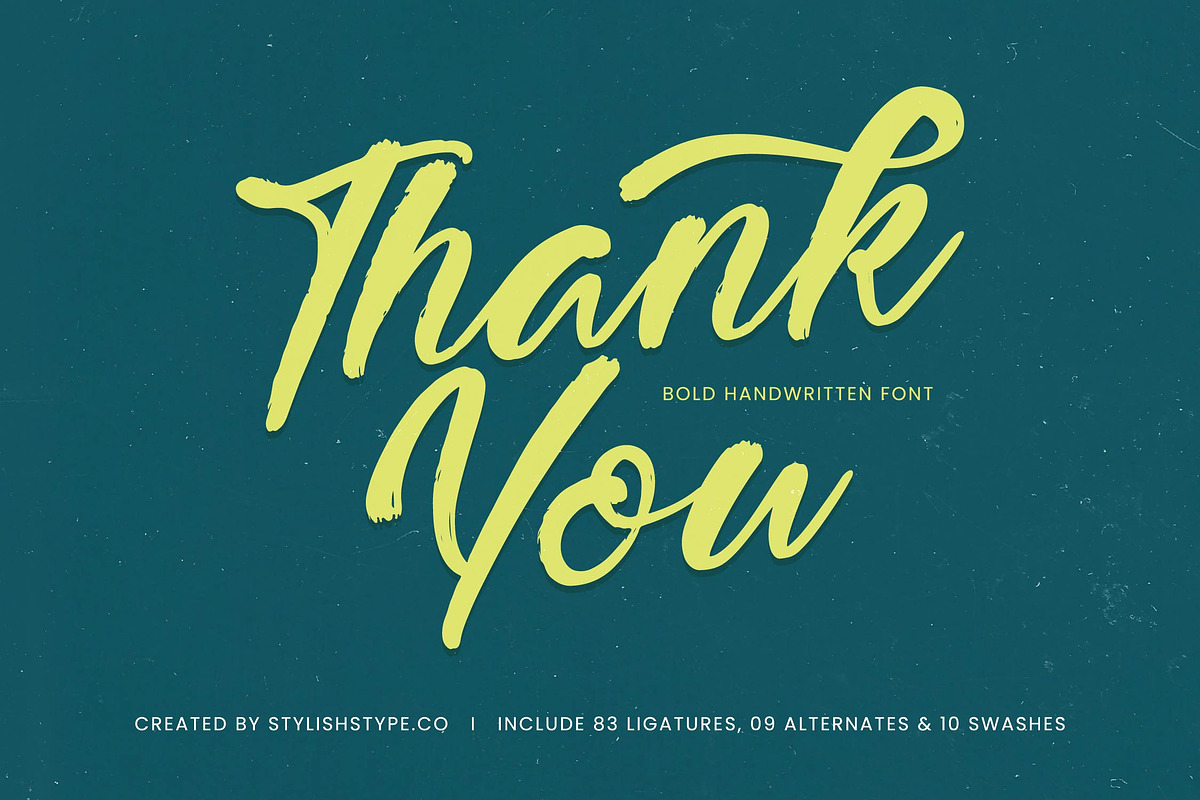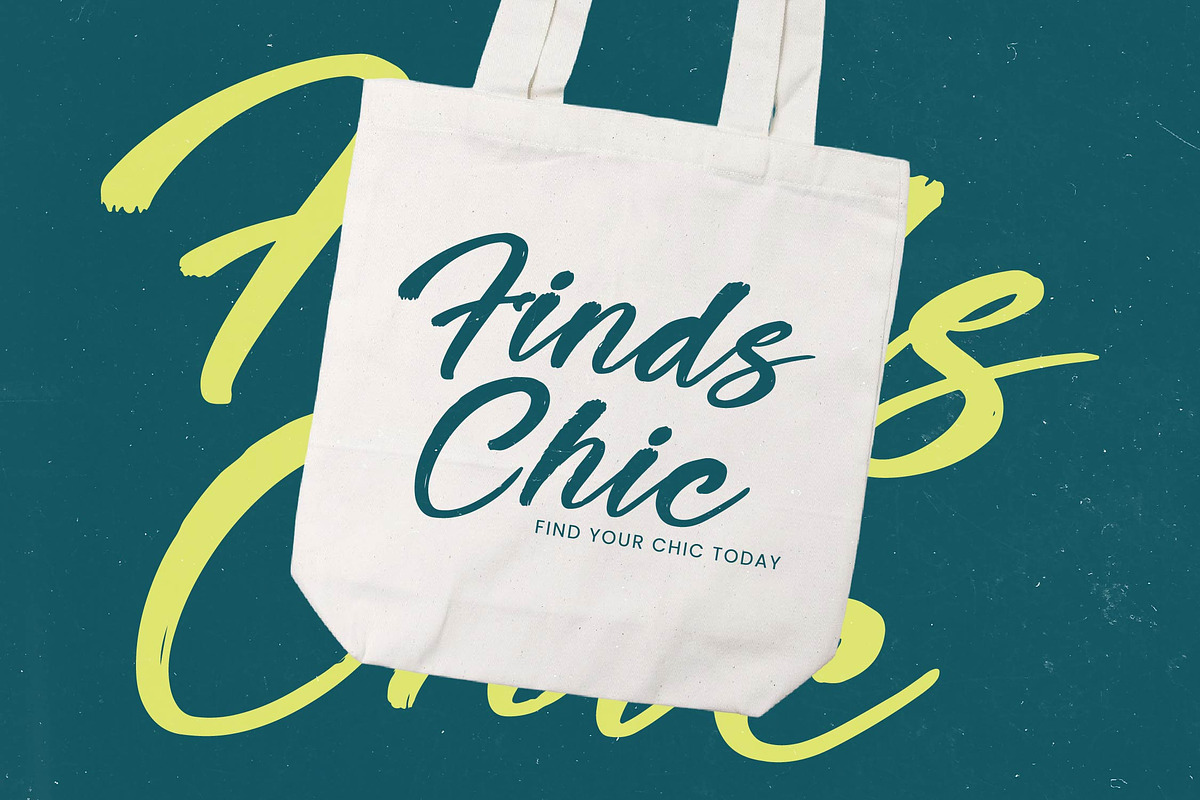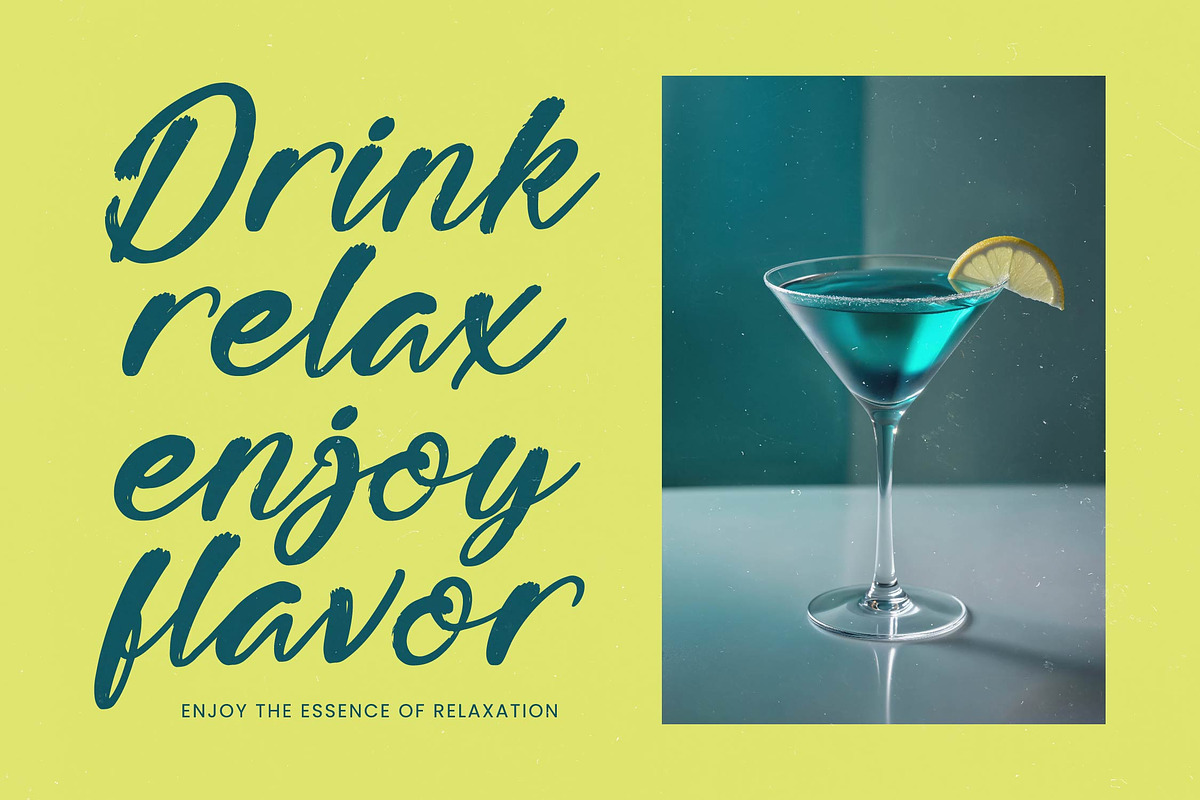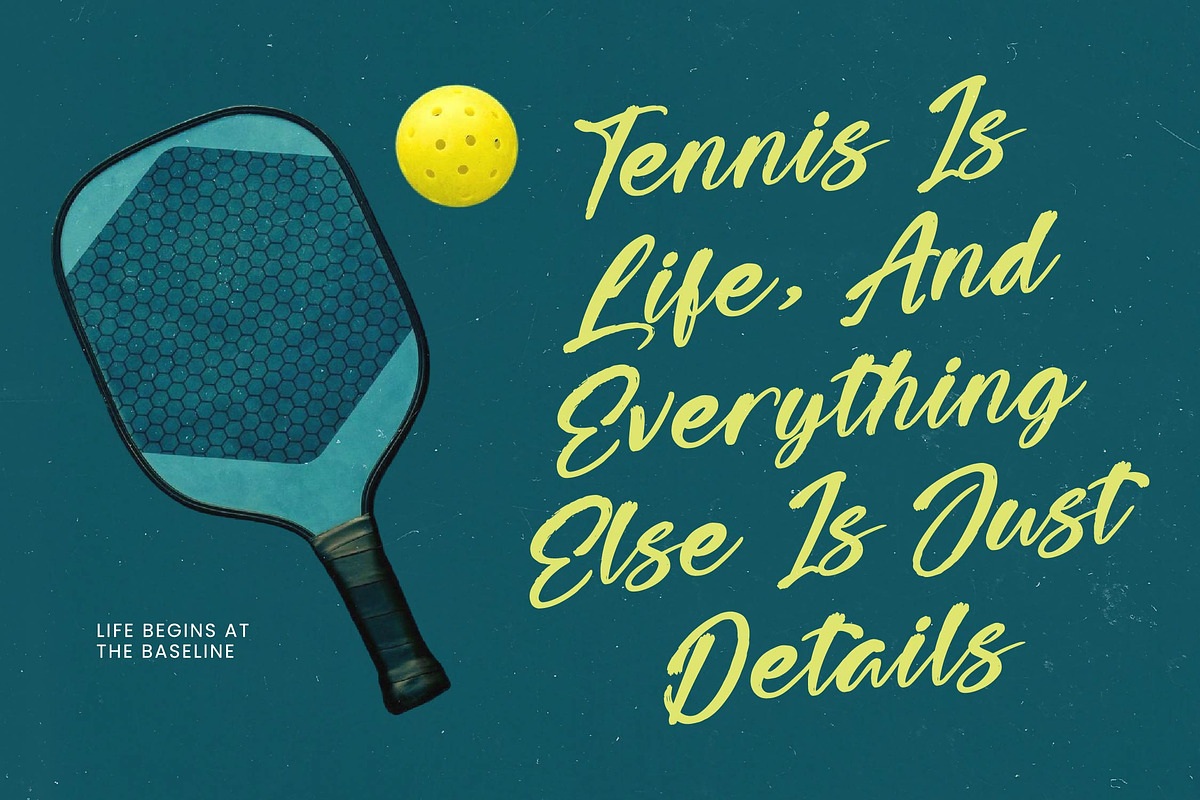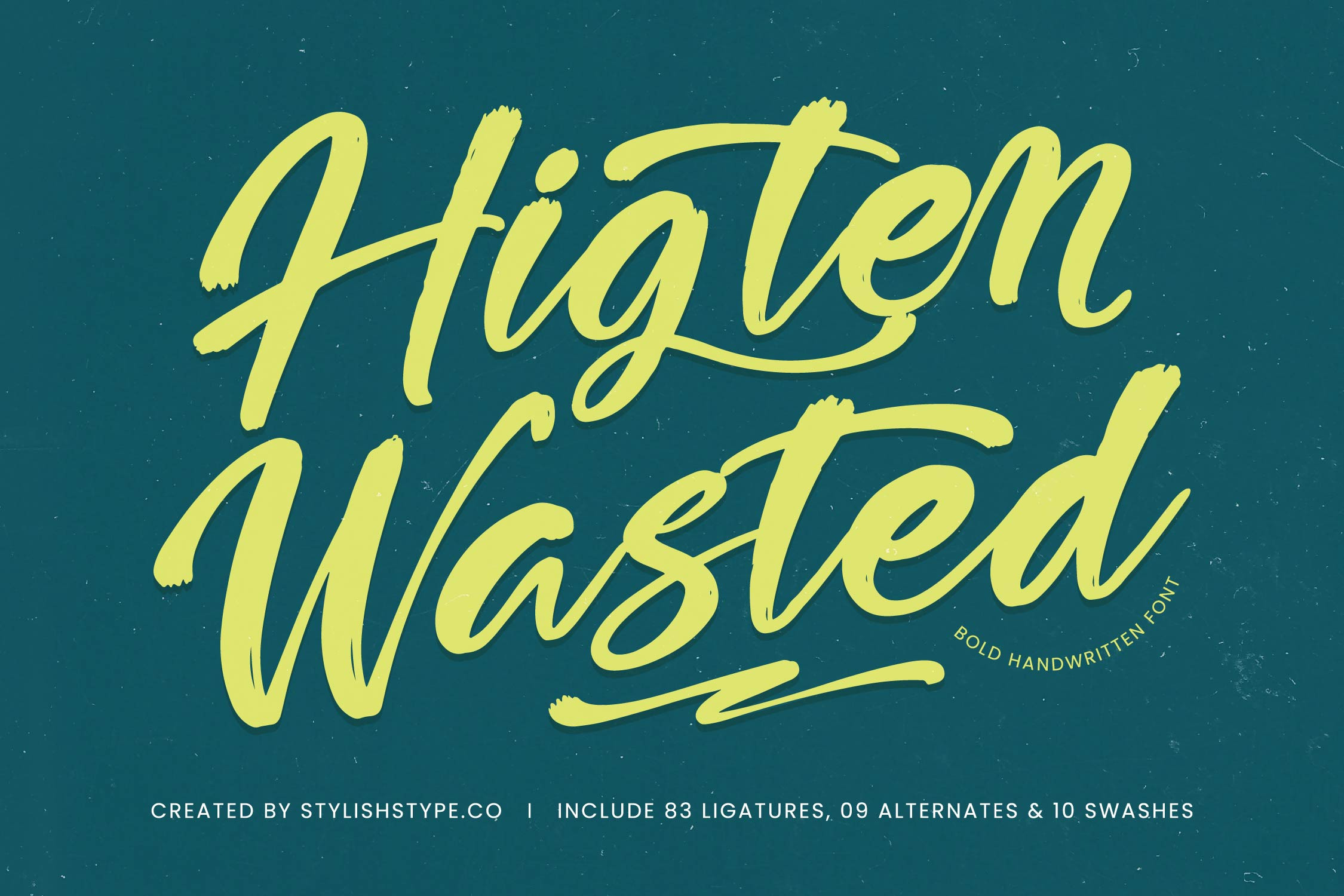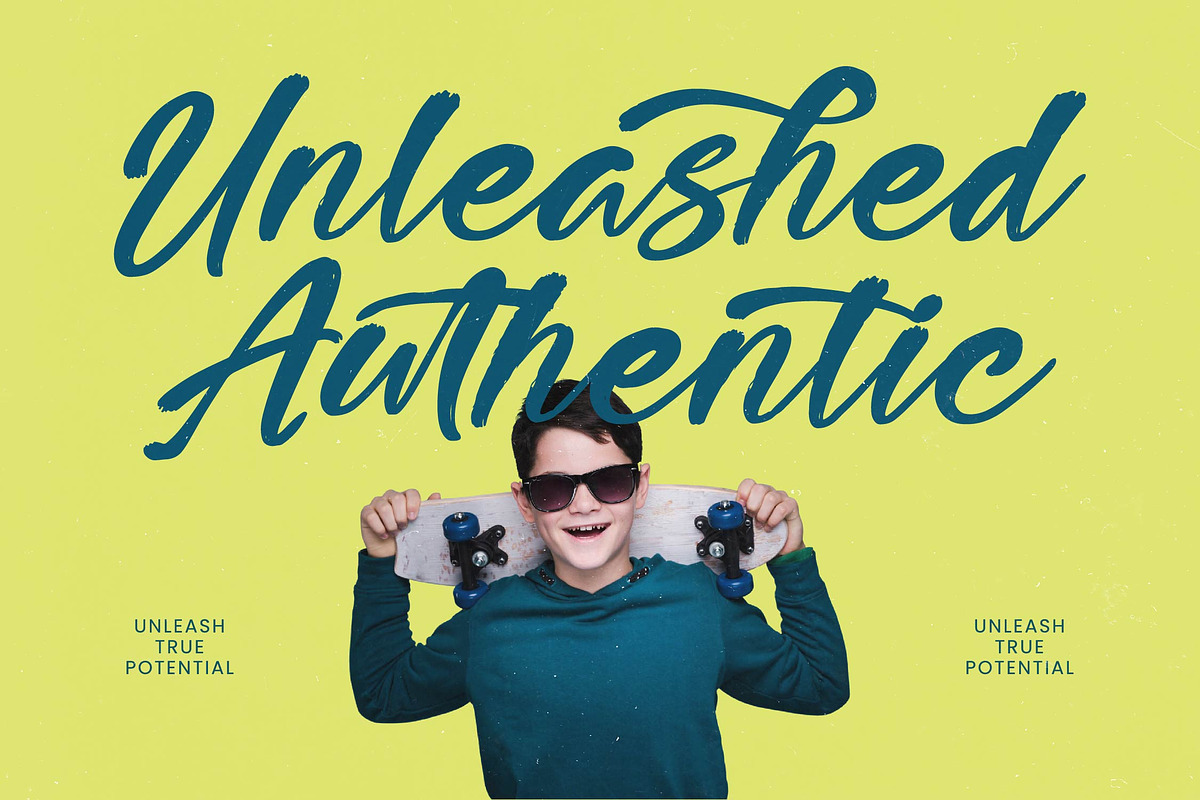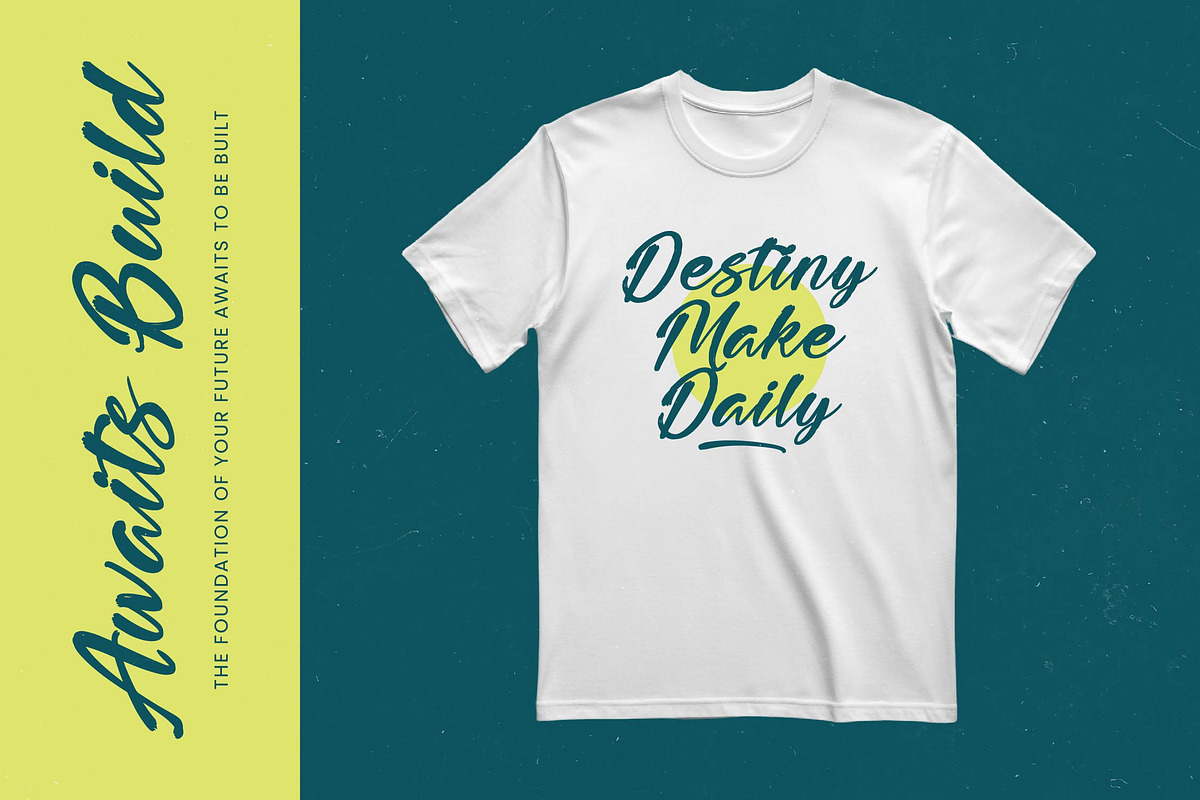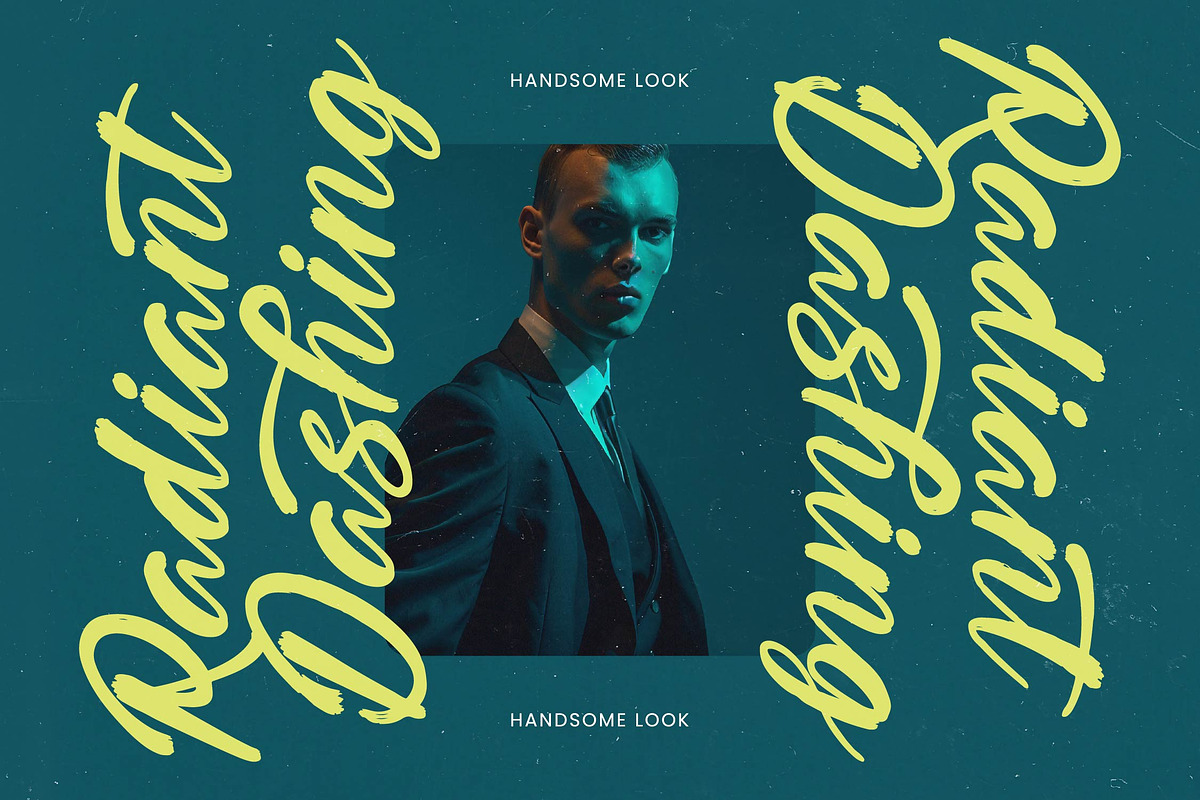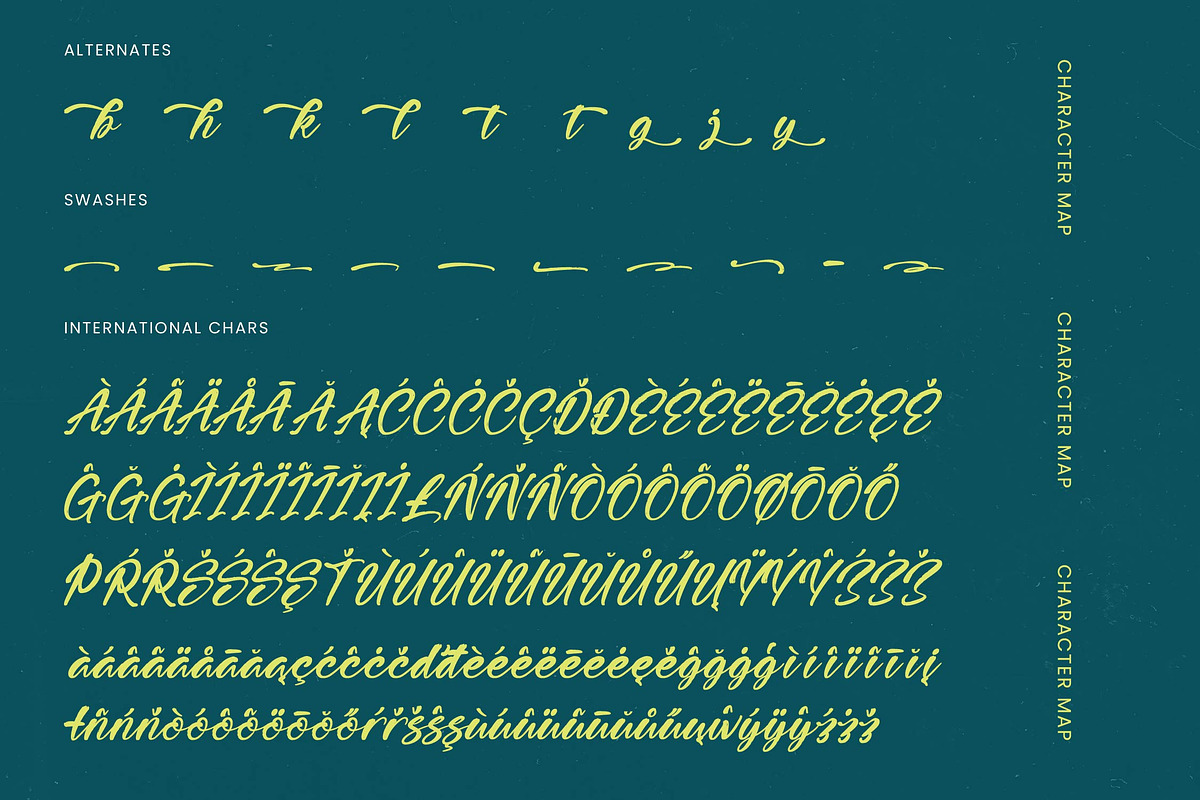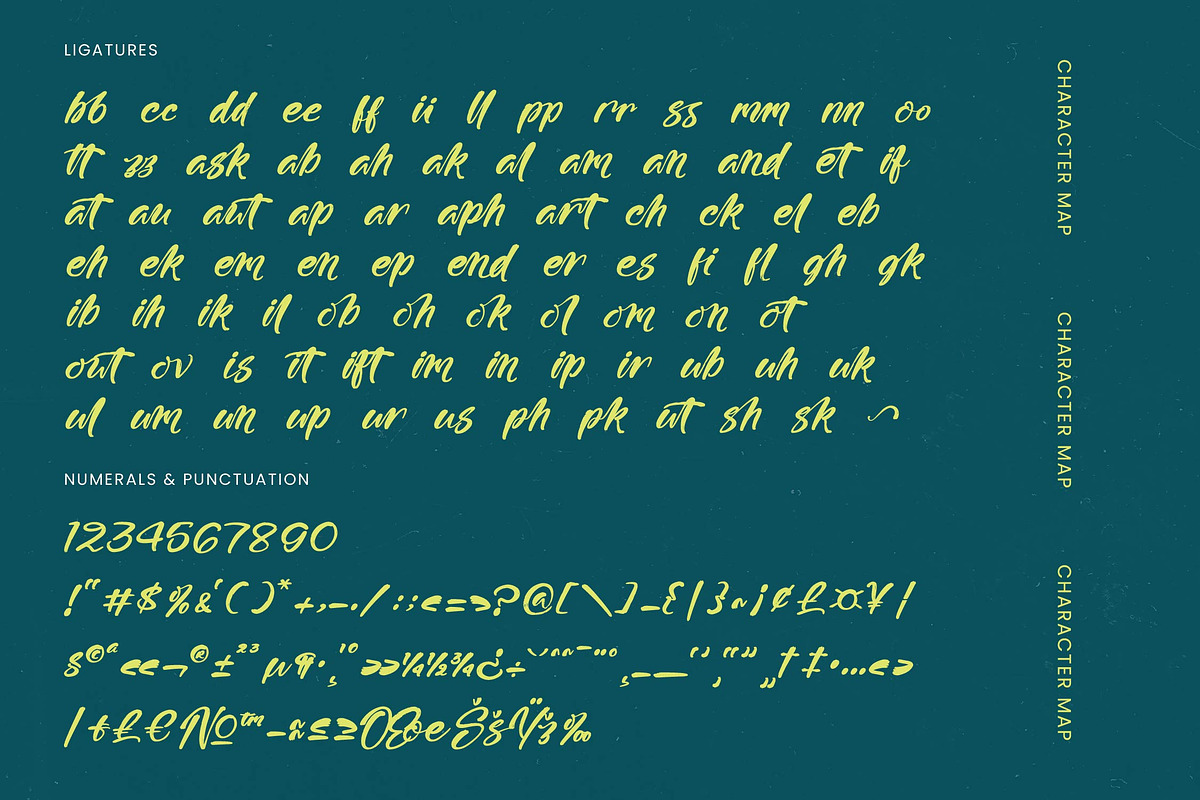
Higten Wasted Bold Handwritten Font
Higten Wasted - Bold Handwritten Font , from Stylishtype.Co , Suitable for any projects such as: logos, branding projects, homeware designs, product packaging, mugs, quotes, posters, shopping bags, t-shirts, book covers, name card, invitation cards, greeting cards, label, photography, watermark, special events, and all your other luxury and beautiful projects that need a Luxury Script taste.
- 083 Ligature 09 Alternates & 10 Swashes